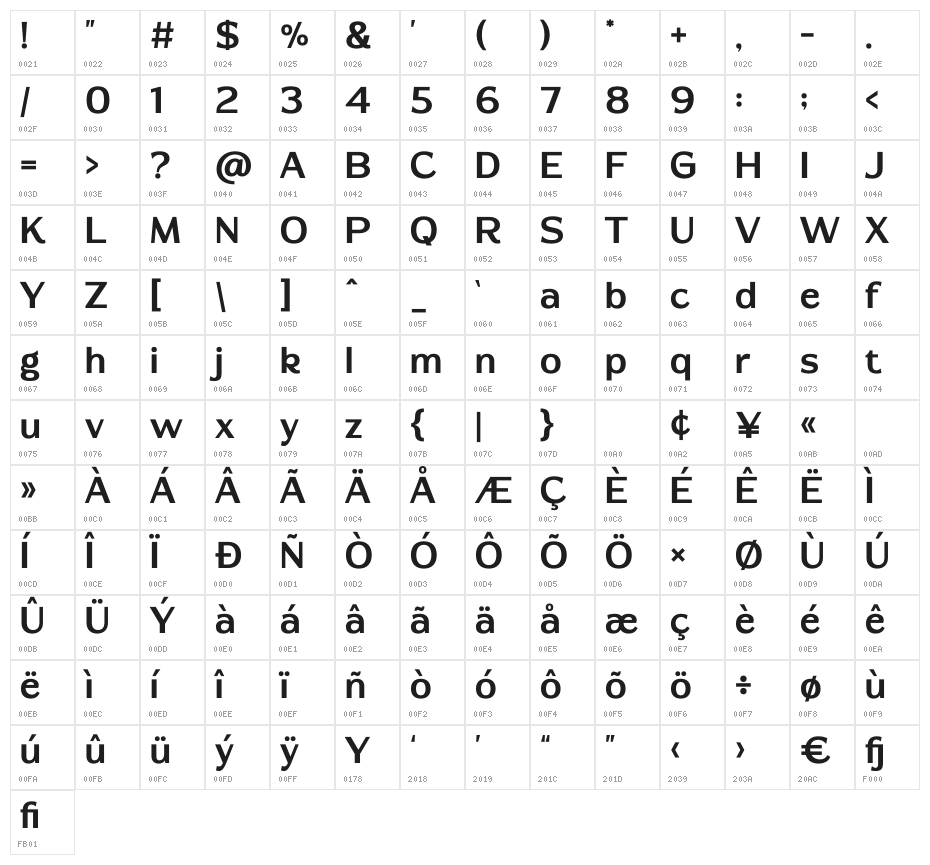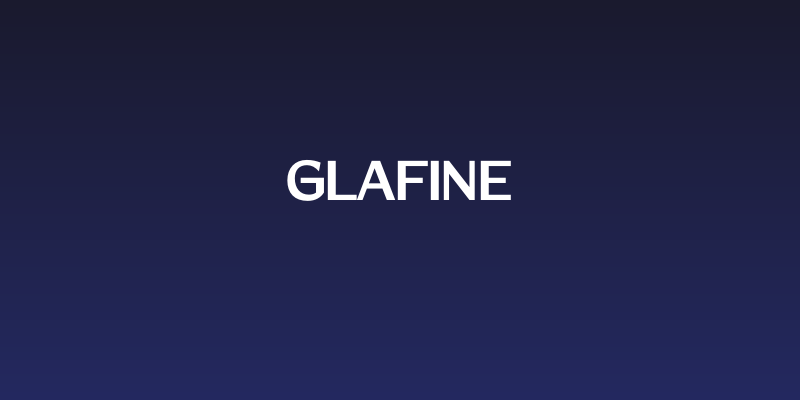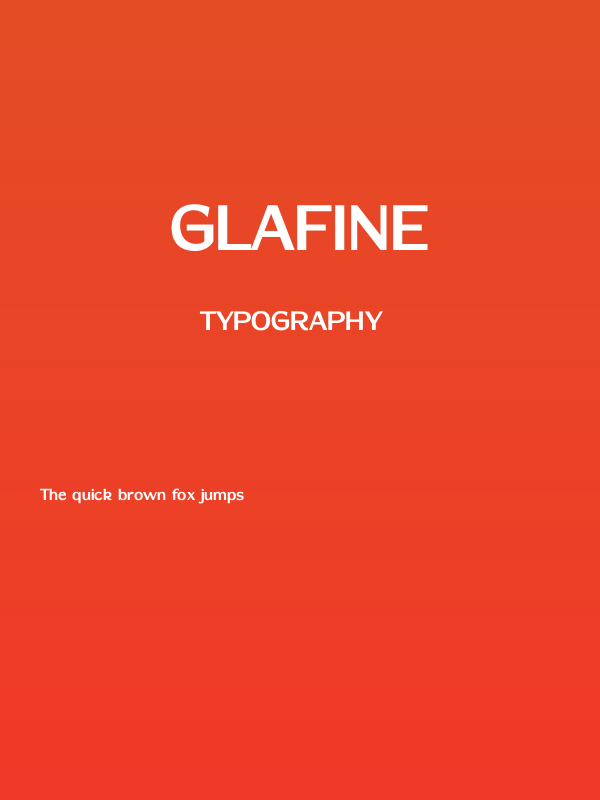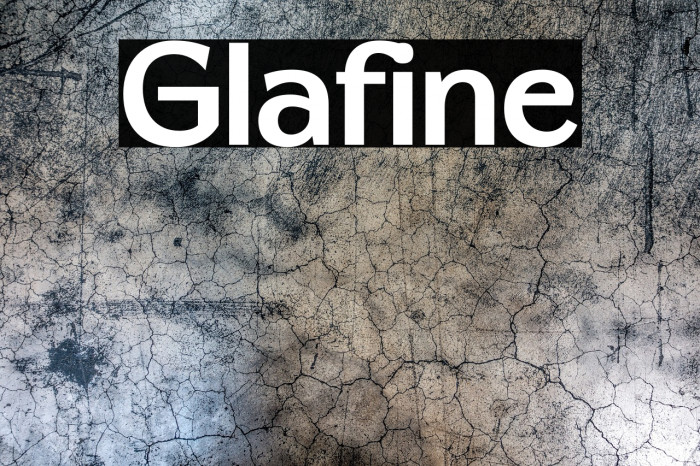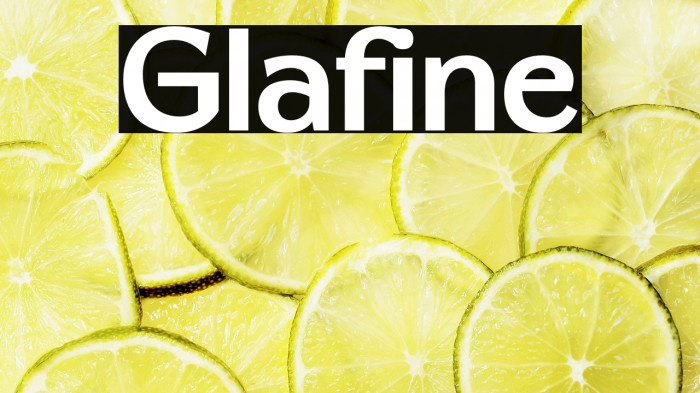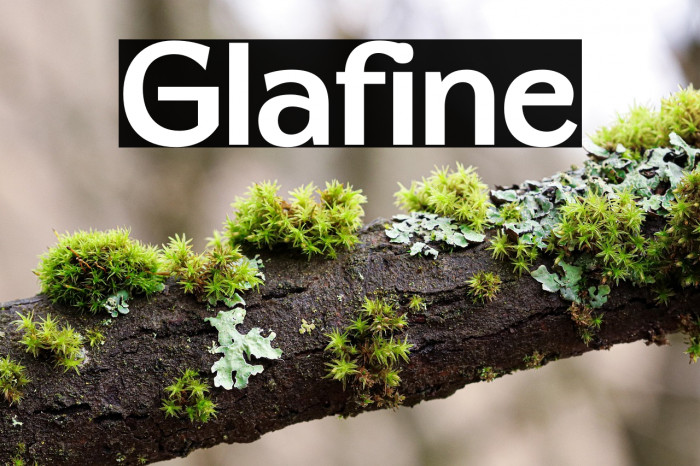
Glafine Font
Glafine Description
This font features a clean and modern sans-serif style with uniform stroke widths, providing a sleek and professional appearance. The characters are well-proportioned, with a slightly condensed form that enhances readability while maintaining a contemporary aesthetic. The uppercase and lowercase letters are distinct and balanced, ensuring clarity in both display and text settings. The numerals are straightforward and align well with the overall design, making them suitable for various applications. The special characters are crafted with precision, complementing the font's cohesive look.
| Proposed Projects | Ideal for corporate branding, web design, digital interfaces, and print media. |